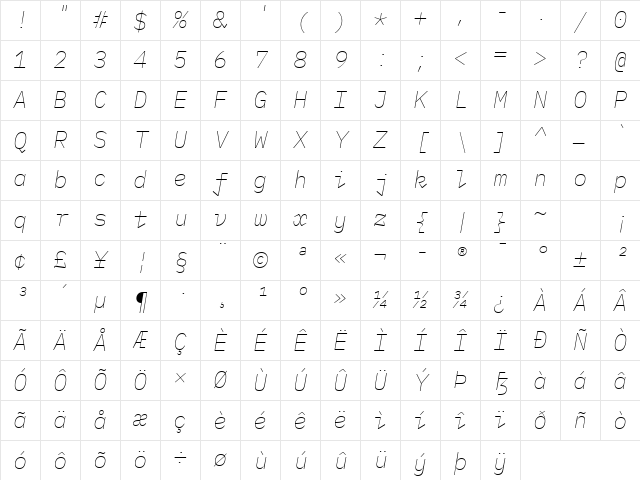
BlexMono Nerd Font Mono Italic
Foundry: Bold Monday
Designer: Mike Abbink, Paul van der Laan, Pieter van Rosmalen
Design Context for BlexMono Nerd Font Mono
BlexMono Nerd Font Mono uses fixed-width spacing throughout, giving it the structured, systematic character associated with coding environments and technical documentation. The slanted form adds forward momentum and visual energy.